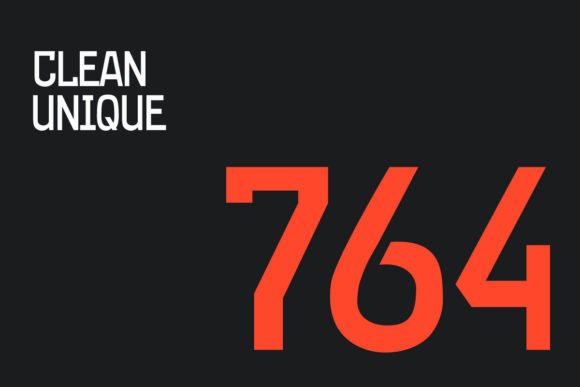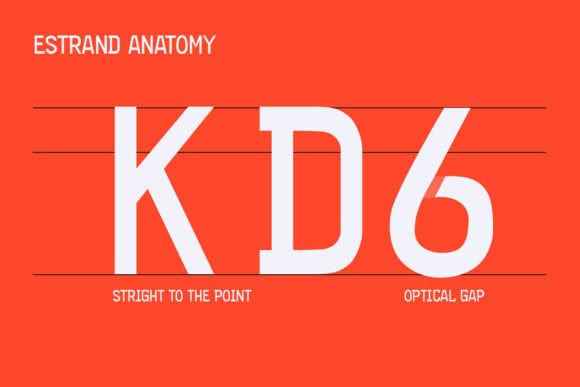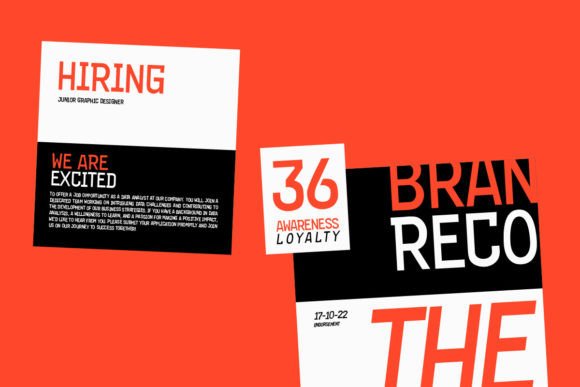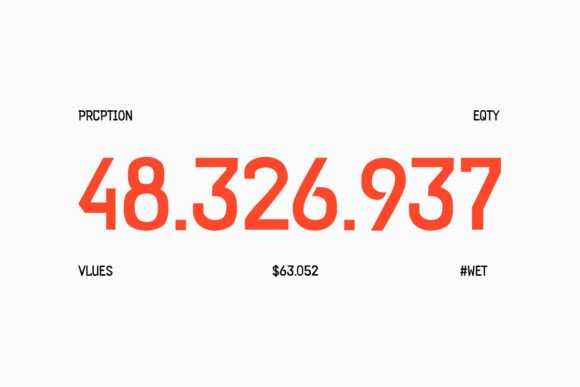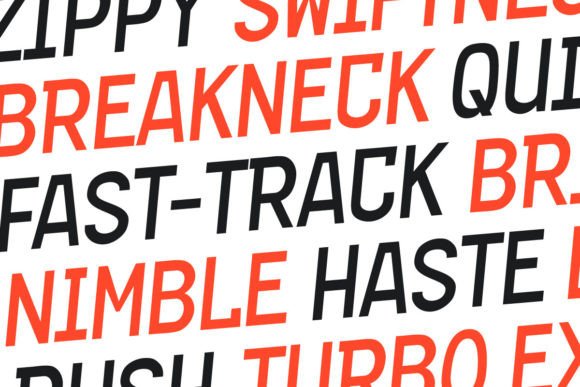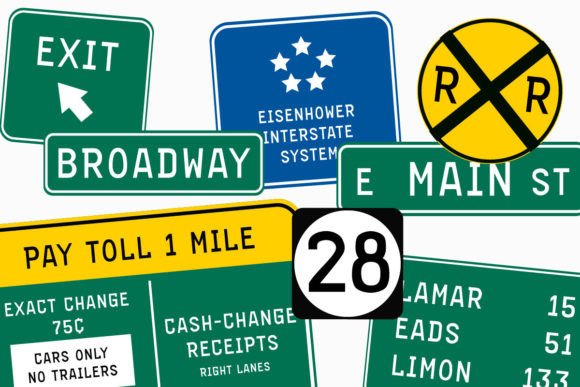
Estrand Font: The Ultimate Choice for Industrial and Outdoor Design
In the world of typography, Estrand Font has emerged as a game-changer for designers and crafters seeking a durable and versatile font for their projects. This condensed sans-serif font is meticulously crafted to deliver clarity and legibility in even the most challenging conditions, making it an ideal choice for industrial and outdoor applications.
Modern Sans Serif: A Study in Simplicity and Straightforwardness
Estrand is a sans-serif typeface that embodies modern simplicity and straightforwardness. Its clean lines and uncluttered design make it an excellent choice for a wide range of design projects. The font’s minimalist approach ensures that the message is conveyed clearly, without any distractions or visual noise. This makes Estrand perfect for designers who want to create a strong visual impact without compromising on readability.
Perfect for Industrial and Outdoor Use
Estrand’s durability and legibility make it the perfect choice for industrial contexts and outdoor settings. Whether it’s on road signs, traffic signals, or outdoor branding, this font delivers the message with utmost clarity. The font’s rugged design ensures that it can withstand the elements, from harsh weather conditions to low visibility, making it an excellent choice for applications where legibility is paramount.
Strong Letterform Anatomy: The Key to Clarity
What sets Estrand apart is its strong and clear letterforms. Even in adverse conditions like low visibility or extreme weather, the font remains reliable, ensuring that your message is always communicated effectively. The font’s robust letterform anatomy is designed to provide maximum legibility, making it perfect for applications where the message needs to be conveyed quickly and clearly.
Key Features of Estrand Font
- Condensed sans-serif font: Perfect for industrial and outdoor applications where space is limited.
- Robust letterform anatomy: Ensures clarity and legibility even in challenging conditions.
- Modern simplicity and straightforwardness: Clean lines and uncluttered design make it perfect for a wide range of design projects.
- Durable and legible: Ideal for industrial contexts and outdoor settings.
Use Cases for Estrand Font
Estrand Font is perfect for a wide range of applications, including:
- Road signage: Estrand’s clarity and legibility make it an excellent choice for road signs, ensuring that drivers can quickly and easily understand the message.
- Traffic signage: The font’s robust design ensures that traffic signs are easily readable, even in adverse conditions.
- Outdoor branding: Estrand’s durability and legibility make it perfect for outdoor branding, ensuring that your message is conveyed clearly and effectively.
- Industrial design: The font’s rugged design makes it perfect for industrial design applications, such as equipment labels and safety signs.
In conclusion, Estrand Font is a game-changer for designers and crafters seeking a durable and versatile font for their industrial and outdoor design projects. Its strong letterform anatomy, modern simplicity, and straightforwardness make it perfect for a wide range of applications. Whether you’re designing road signs, traffic signals, or outdoor branding, Estrand Font is the ultimate choice for delivering your message with clarity and legibility.